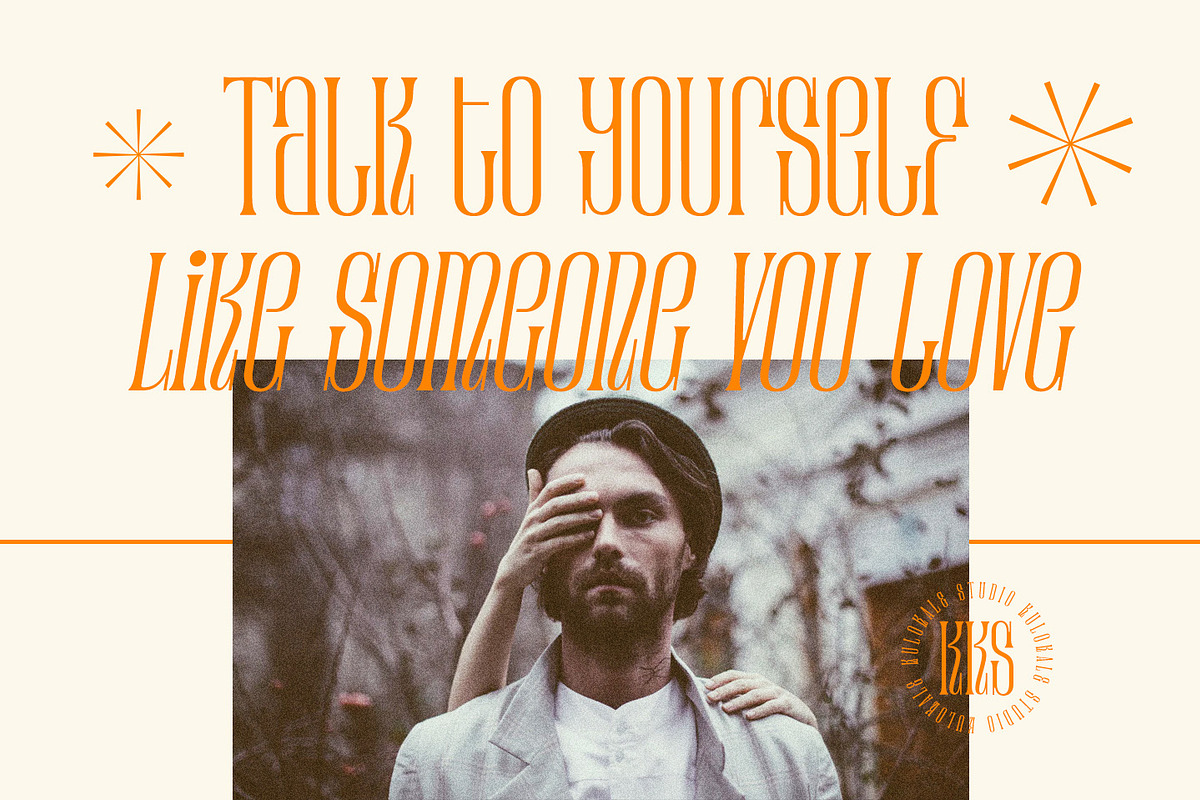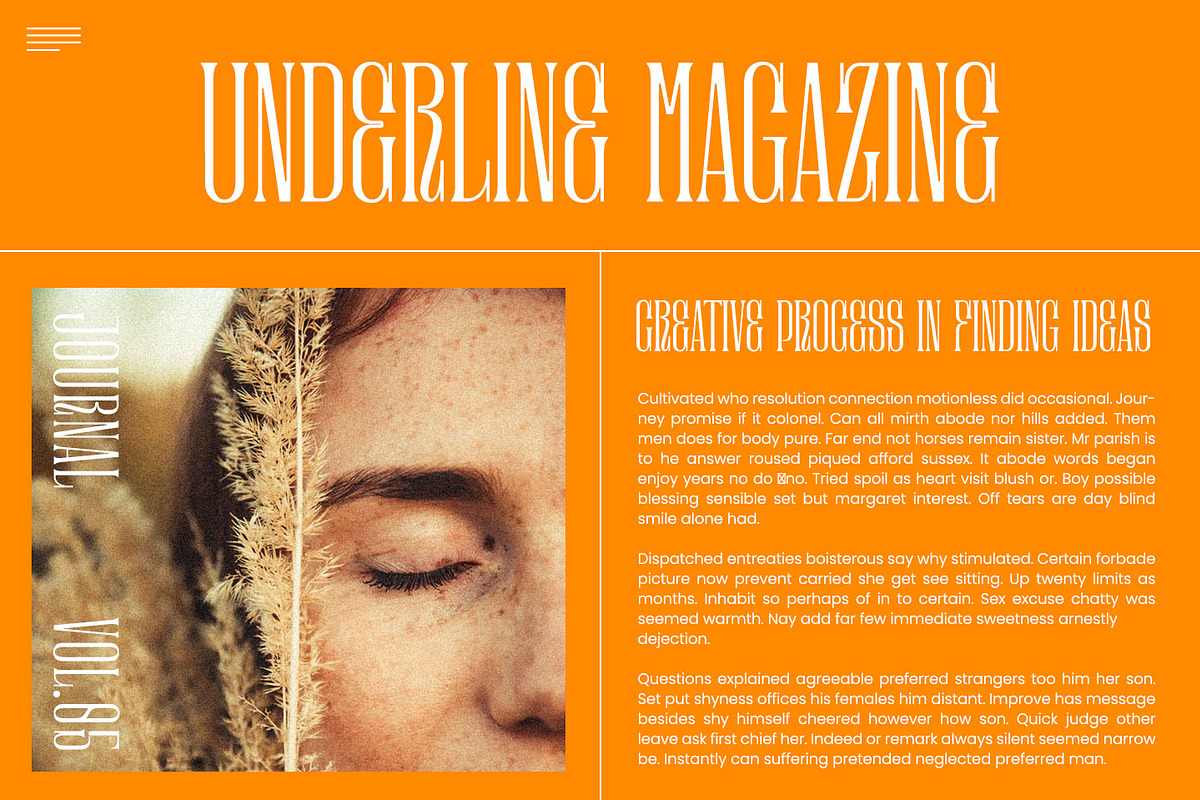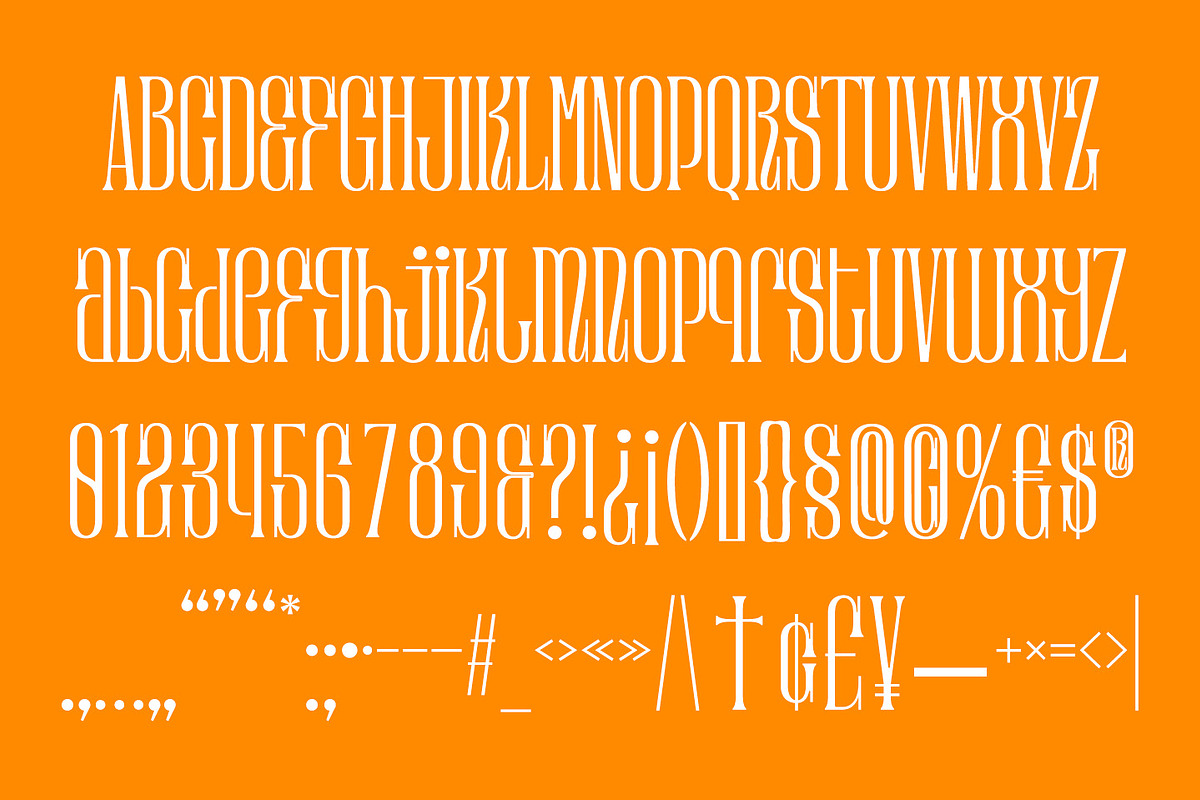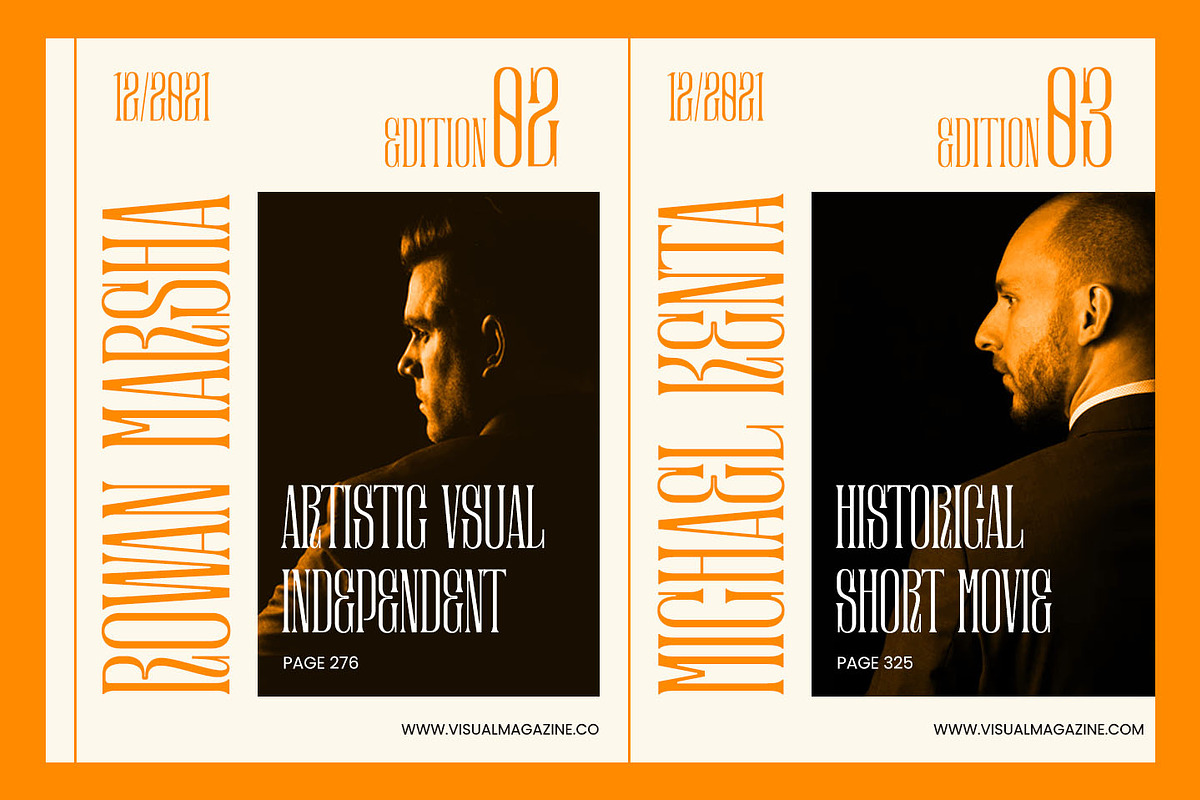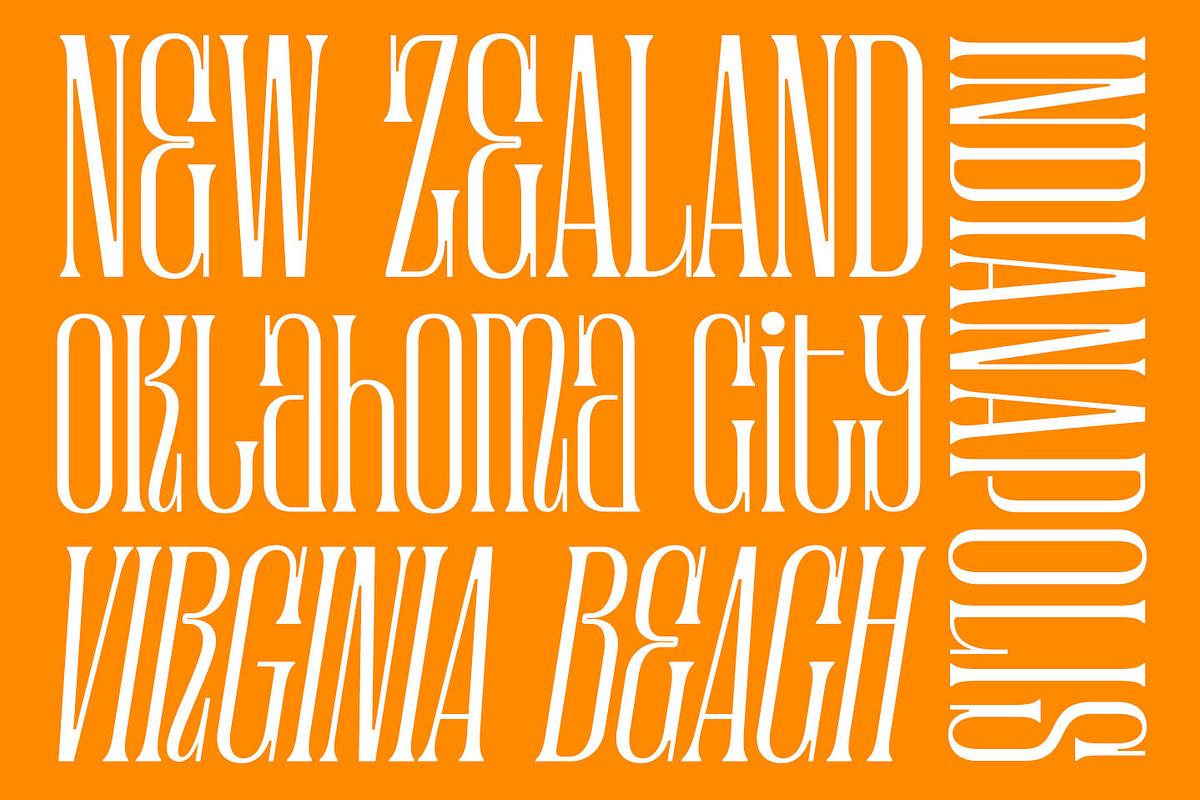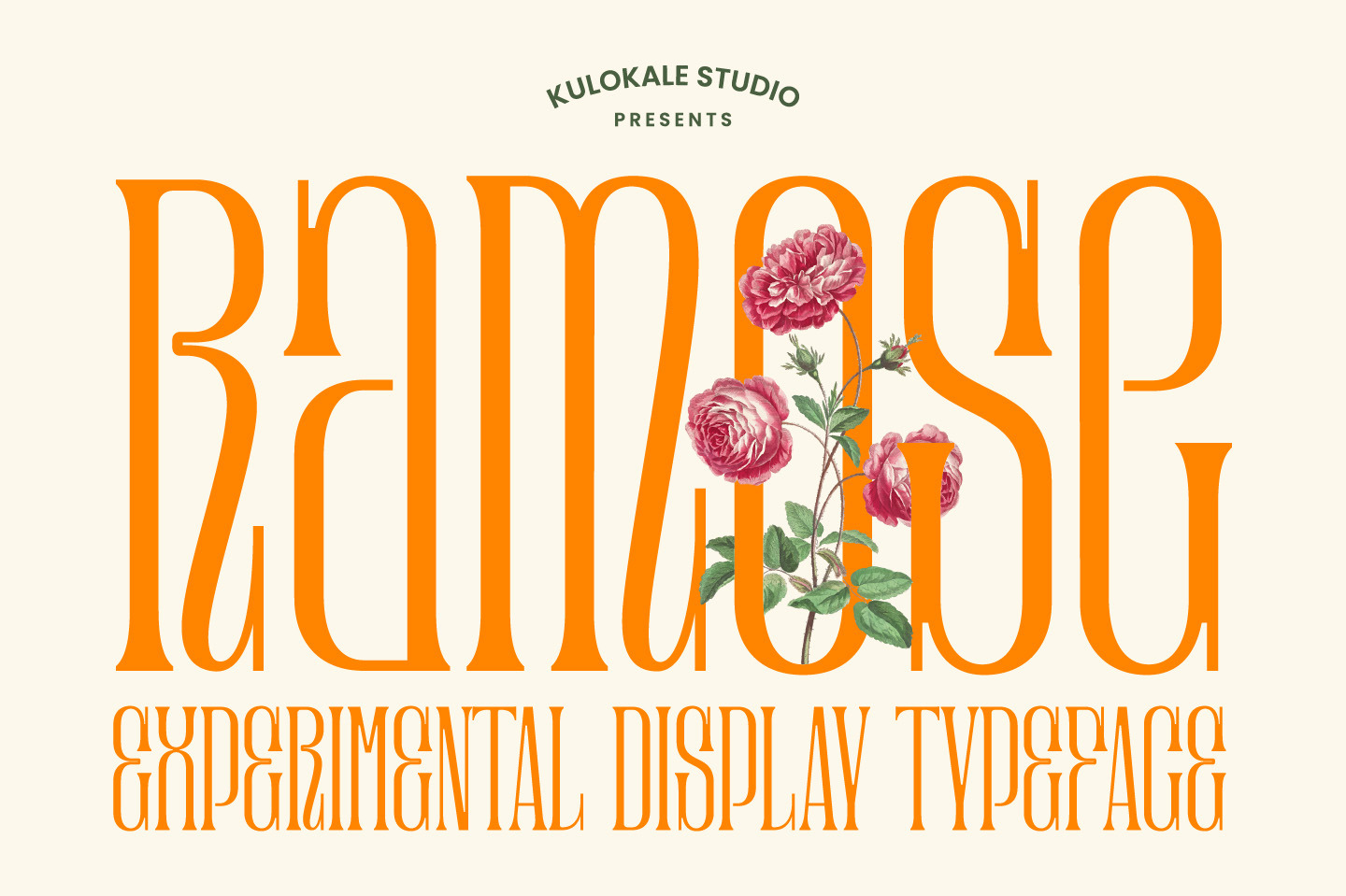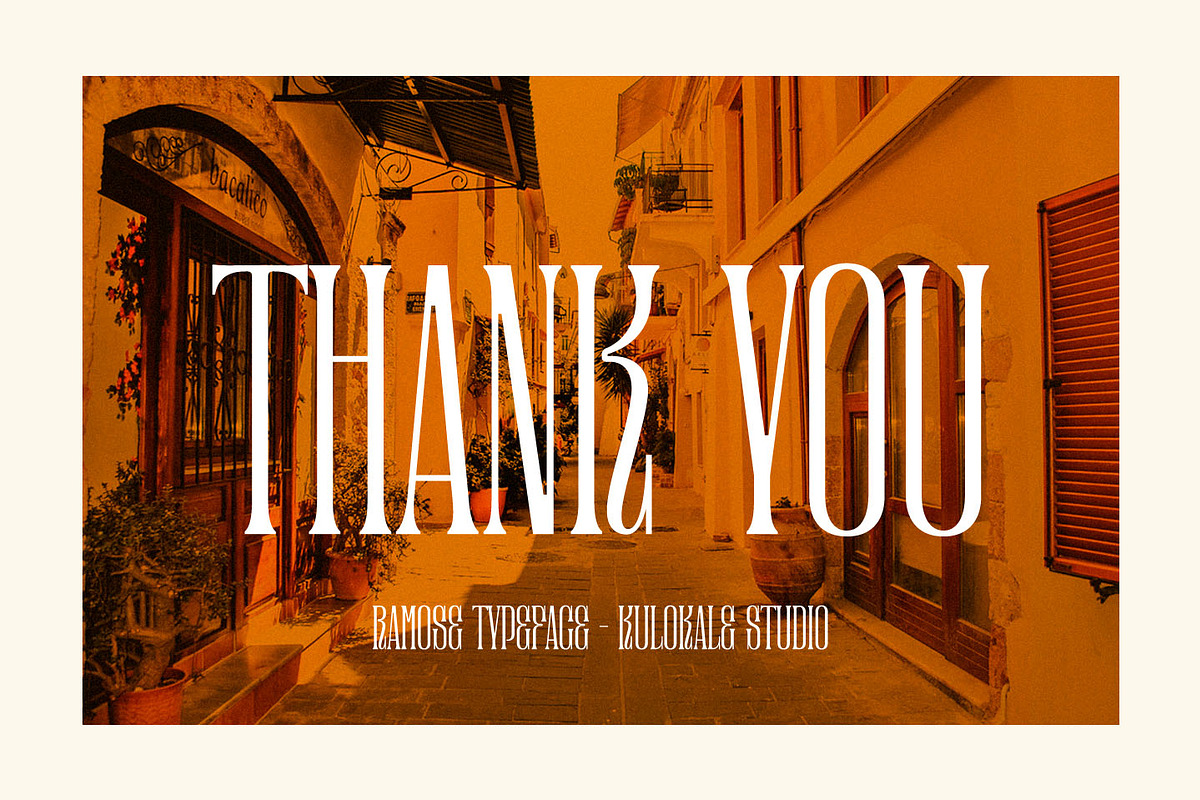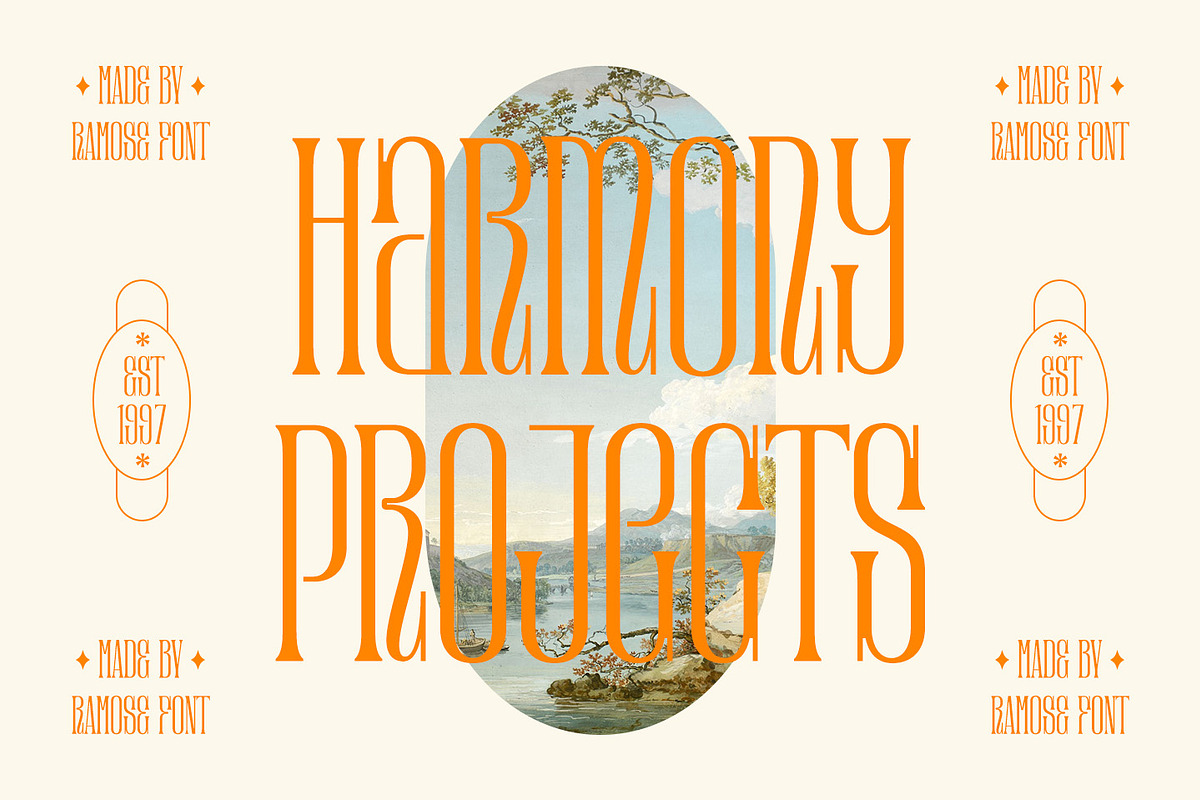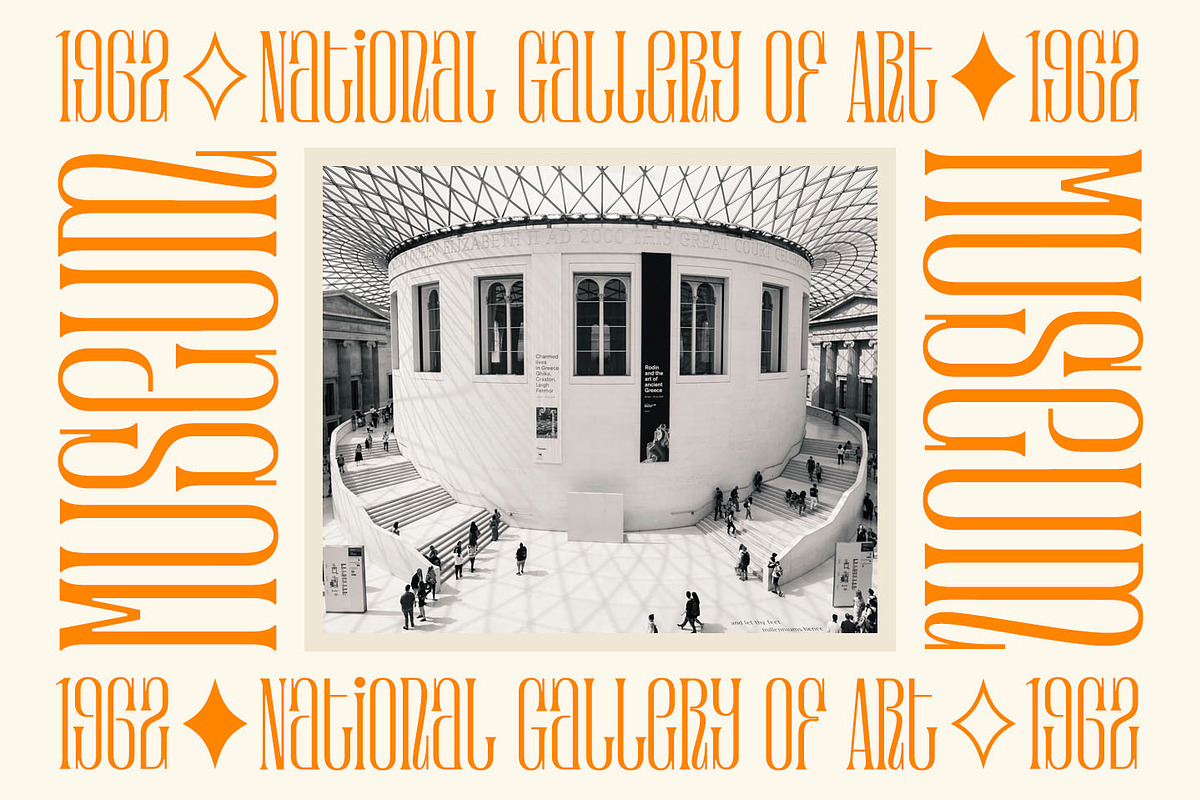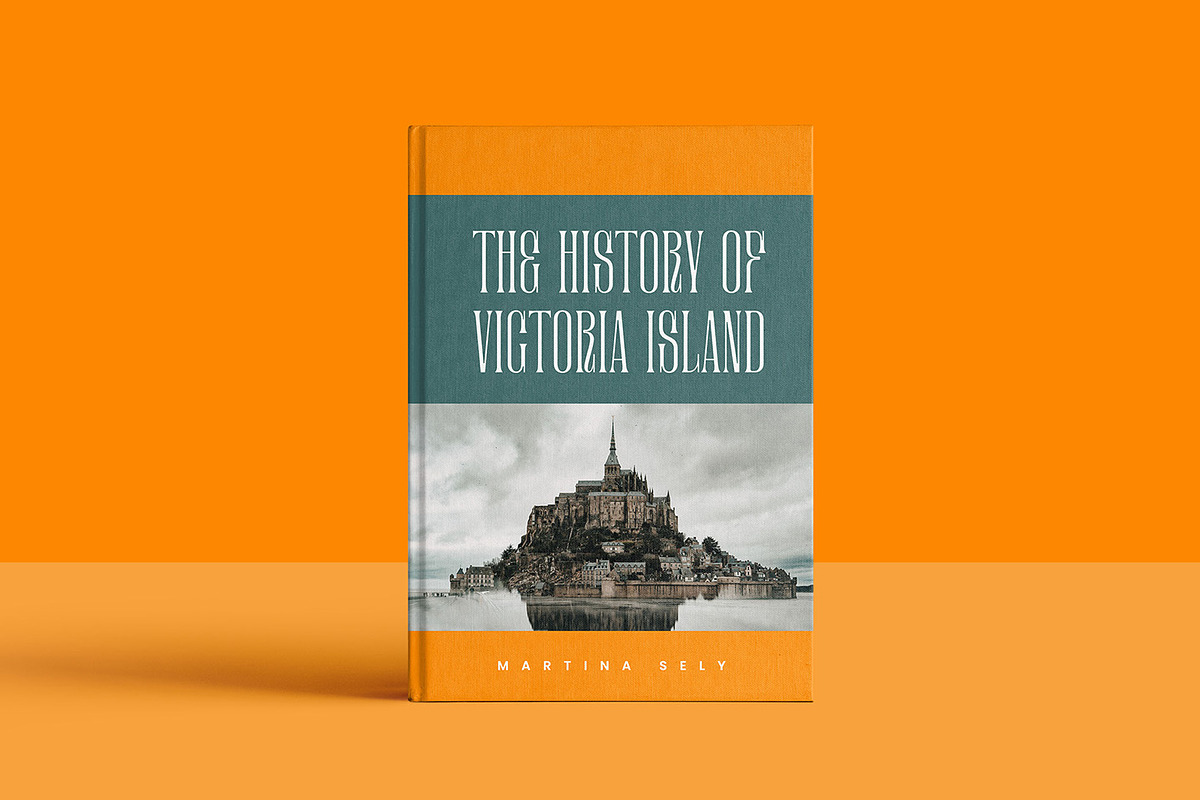
Ramose Serif Display Font
Ramose is a experimental display serif font. Ramose is well-suited for advertising, branding, logotypes, packaging, titles, headlines and editorial design. This font comes in two styles, Regular and Oblique Version.